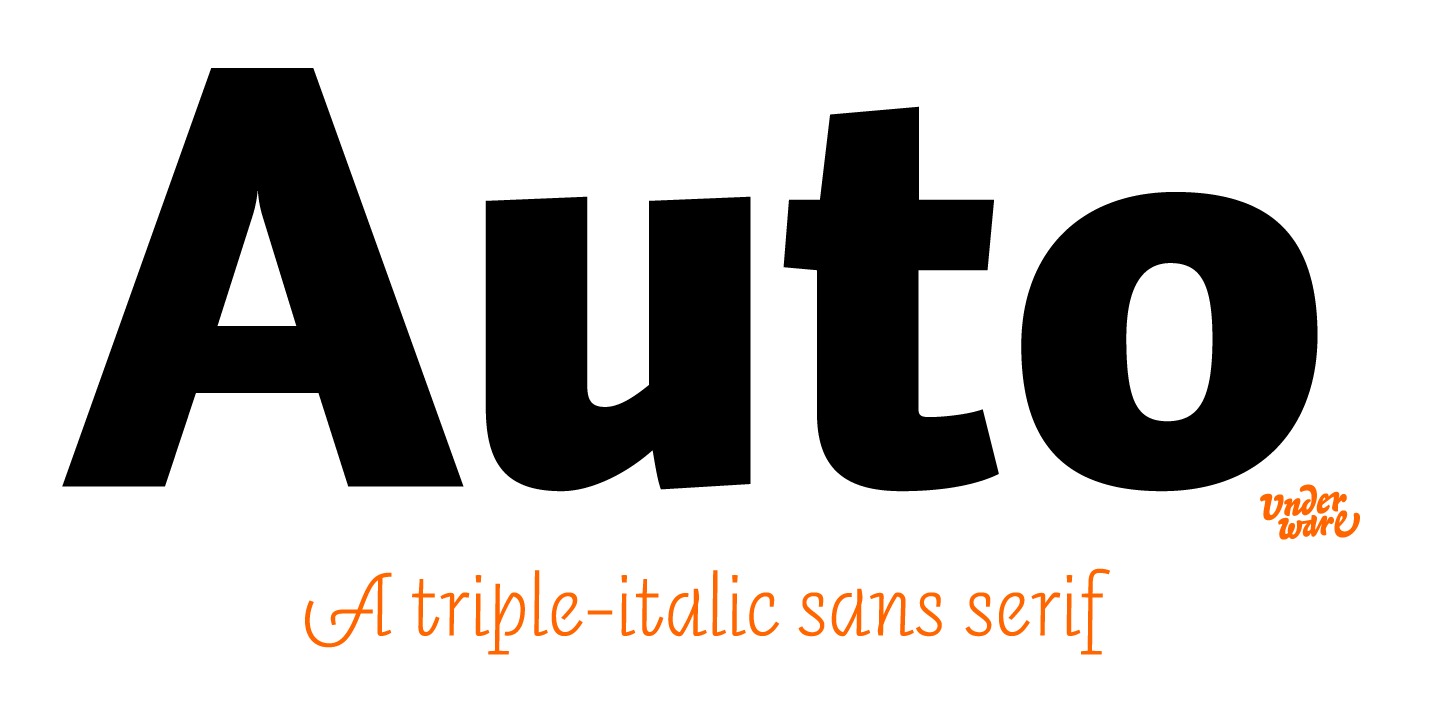
Auto Pro Font Family
Auto Pro Font Family is a professionally designed typeface that delivers clarity, structure, and consistent performance across various design applications. Auto Pro is a warm, humanist sans serif typeface which has three different styles of italics, each with its own flavor. With its three italics, Auto creates a new typographic palette, allowing the user to drive through unknown typographic and linguistic possibilities. Also, because of its four weights and the three different figure styles, it’s a vehicle equipped for many roads of typography. Comes with Underware’s Latin Plus character set with a support for 219 languages. Take a cruise, and let this typeface carry you to business or leisure.
Designer: Bas Jacobs, Akiem Helmling, Sami Kortemäki, Underware